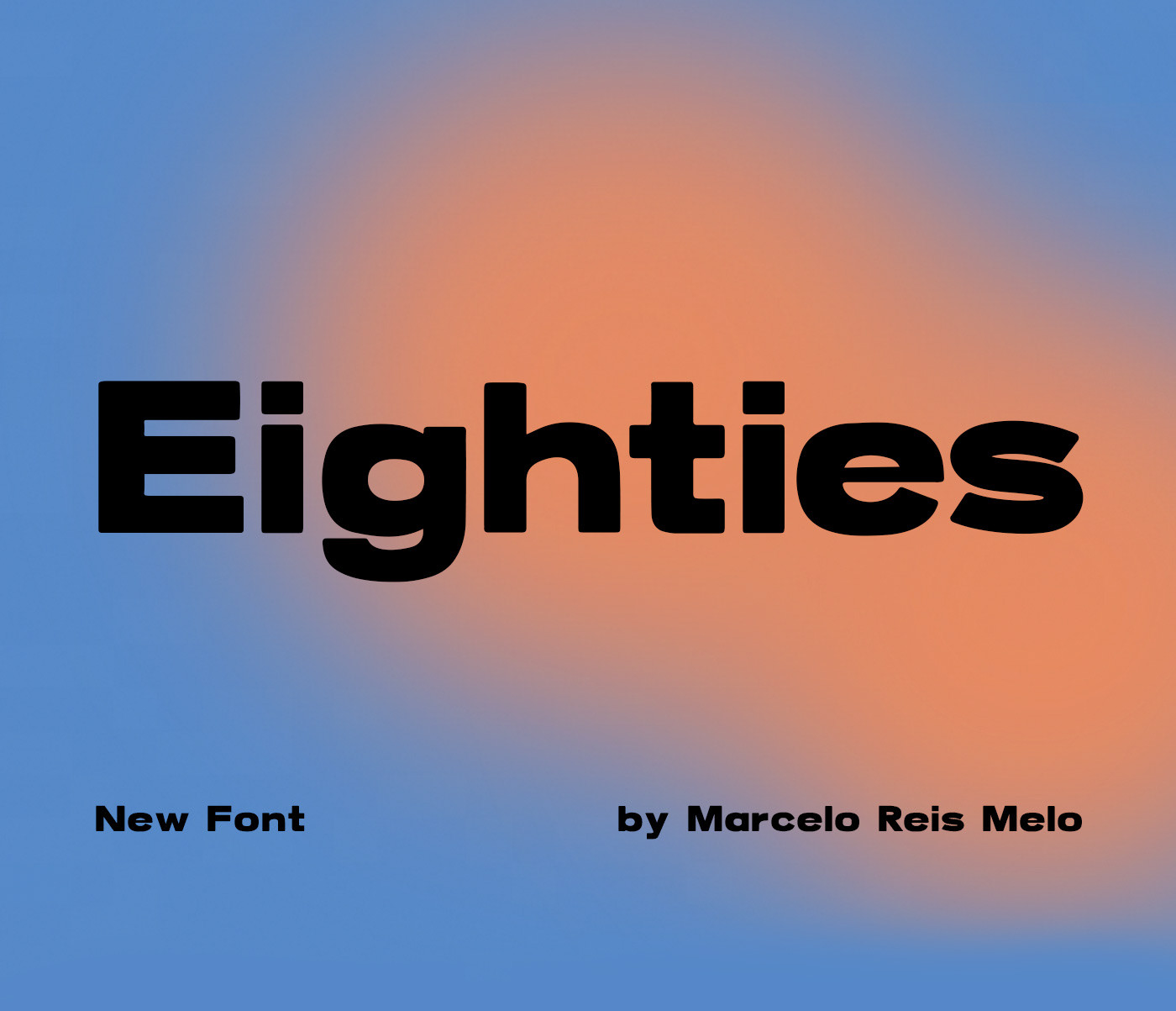
Eighties is a very nice bold font perfect for posters and headlines, it combines a vintage and a fresh look at the same time. Another great font design by Marcelo Reis Melo and it is exclusive for Free Goodies for Designers! Avaiable in the formats OTF TTF and WEBFONT.